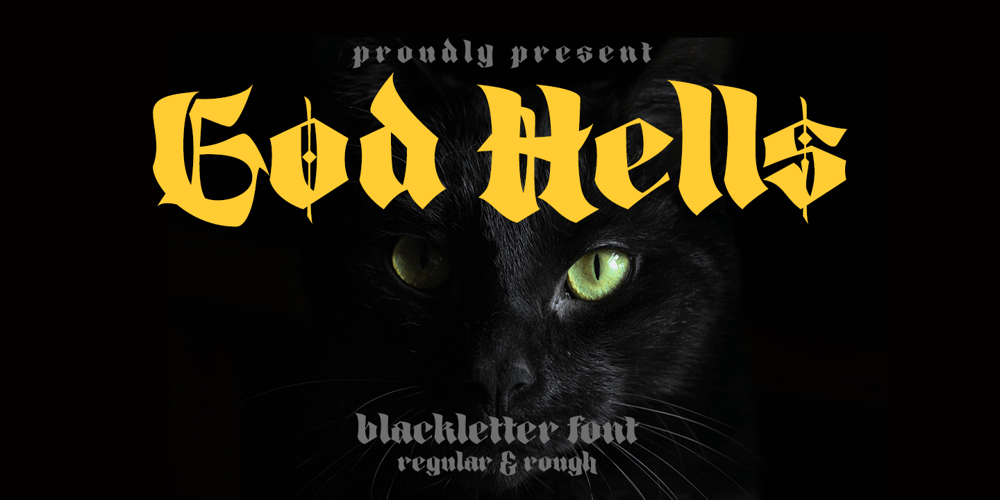
God Hells Font Family was designed by madededuk and published by madeDeduk. God Hells contains 2 styles and family package options. Really excited to introduce God Hells is a classic blackletter font, made with a stylish impression and supported by alternative with references to various letters that I combine. There’s come with 2 style font and suitable to create any branding, product packaging, invitation, quotes, t-shirt, label, poster, logo etc.Feature Uppercase & Lowercase Number & Symbol International Glyphs Multilingual support Alternative Ligature Feel free to drop us a message any timeHope you enjoy it.